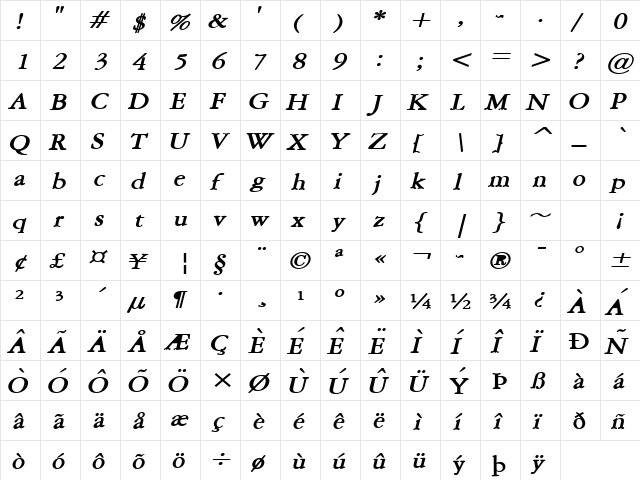
Amery Wide BoldItalic
Design Context for Amery Wide Typeface
Amery Wide is a composed and adaptable typeface that performs quietly and consistently across a wide range of design contexts. Its italic angle brings a sense of urgency and motion to the letterforms. Its bold stroke weight gives it real presence on the page.
Pro Tip: Use Amery Wide for emphasis, pull quotes, and subheadings where its slanted energy can add rhythm to the layout.